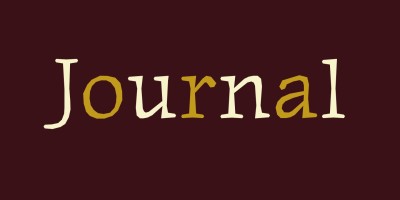
Galicia Free Download
Elevate your design projects with a touch of elegance and old-world charm using Galicia Font Free Download. Inspired by classic European calligraphy and modern typography trends, Galicia Font brings refined curves, graceful serifs, and a sophisticated aesthetic that’s perfect for branding, packaging, wedding invitations, editorial layouts, and more.
Whether you're designing a luxurious wine label, a boutique logo, or a romantic quote post, Galicia Font delivers timeless style with a contemporary edge. Its versatile letterforms make it suitable for both headers and body text, and it adds an artisanal feel to every project it touches. The font’s gentle strokes and balanced proportions evoke a sense of harmony and beauty—ideal for designers seeking elegance without pretension.